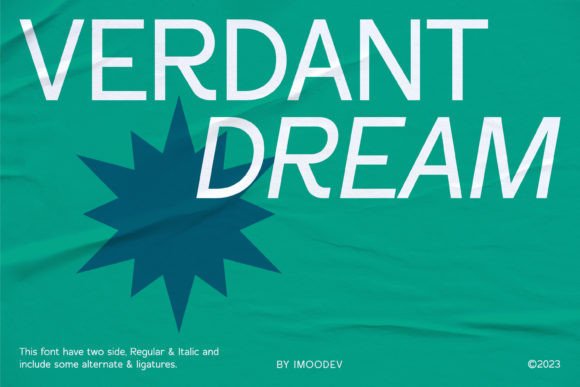
Step into a World of Enchanting Typography with Verdant Dream Font: Your Gateway to Visual Elegance
Discover the allure of Verdant Dream, a sans serif font that weaves a tapestry of elegance and charm into every letterform. Its graceful curves and sublime style bestow an aura of sophistication upon your creative endeavors, transforming your words into captivating visual expressions. Experience the allure of a font that transcends the ordinary, elevating your designs to new heights of artistry.
Verdant Dream's versatility shines as it effortlessly adapts to both uppercase and lowercase characters, seamlessly blending into a diverse array of projects. Whether you seek to craft captivating headlines, design logos that leave a lasting impression, or create invitations that exude an air of timeless grace, Verdant Dream is your trusted companion. Let your imagination flourish as you explore the endless possibilities that await within this remarkable font.
Unleash your creativity and embark on a typographic journey like no other. Verdant Dream beckons you to craft stunning branding materials that command attention, leaving an indelible mark on your audience's minds. Its allure extends to the world of magazines, where it lends a touch of sophistication to editorials and articles alike. Whether you're designing cards that convey heartfelt sentiments or creating product packaging that exudes luxury, Verdant Dream is your steadfast ally.
Step into the realm of product mockups and witness the transformative power of Verdant Dream. Its presence elevates ordinary objects into visually captivating masterpieces, inviting your customers to immerse themselves in a world of elegance and refinement. Unleash your inner artist and design mugs, posters, and labels that speak volumes about your brand's identity. Let Verdant Dream carry your message to new heights, captivating audiences with its timeless beauty.
Explore the limitless possibilities that await in the world of editorial design with Verdant Dream. Its graceful curves lend themselves effortlessly to crafting captivating headlines and body text that draws readers into your stories. Engage your audience with articles that exude an air of authority and sophistication, leaving them craving more. Verdant Dream seamlessly adapts to the world of art deco, adding a touch of vintage charm to your designs. Its timeless aesthetic complements film and video projects, creating an atmosphere of nostalgia and elegance.
Harness the power of Verdant Dream to elevate your advertising campaigns to new heights. Its captivating nature demands attention, ensuring that your message cuts through the noise and resonates with your target audience. Create advertisements that captivate and inspire, leaving a lasting impression that lingers long after the final frame. Verdant Dream is your indispensable tool for crafting marketing materials that generate excitement, drive conversions, and build a loyal customer base.
Indulge in the exquisite beauty of Verdant Dream and unlock a world of typographic wonders. Its versatility and charm will transform your projects into captivating masterpieces, leaving your audience spellbound. Verdant Dream is more than just a font; it's a gateway to a world of visual enchantment, a font that ignites your creativity and empowers you to weave tales that touch the soul. Embrace the elegance of Verdant Dream today and elevate your designs to new heights of artistry.